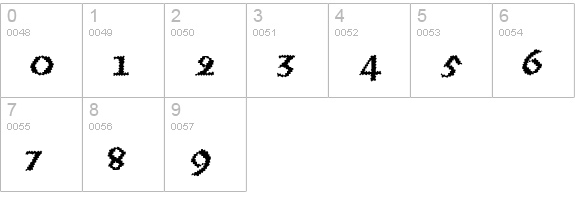
Quaxy Bold Italic Font Details
Quaxy Bold Italic is a strong, high-contrast, italic variant in the Quaxy typeface family \xE2\x80\x94 well suited to headlines, attention-grabbing titles, and strong calls-to-action.
Quaxy Bold Italic font is a stunning typographic masterpiece that combines the elegance of bold letterforms with the distinctive flair of italics. Designed to make a lasting impression, this font exudes confidence and sophistication, making it perfect for attention-grabbing headlines, powerful logos, and stylish branding. With its strong and dynamic presence, Quaxy Bold Italic font commands attention and effortlessly captures the essence of modern design. Each letter has been meticulously crafted to create a harmonious balance between boldness and elegance, resulting in a unique and eye-catching aesthetic. Whether you are working on a professional project, a creative endeavor, or simply looking to enhance your personal documents, Quaxy Bold Italic font is the perfect choice. Its versatility allows it to adapt to a variety of design styles, from sleek and minimalistic to bold and expressive. One of the best features of Quaxy Bold Italic font is that it is freely available to download at FontsMarket.com. This means that you can easily access this remarkable font and incorporate it into your design projects without any hassle. The font's availability for free makes it an excellent resource for designers, students, and anyone looking to add a touch of sophistication to their work. So, if you are searching for a font that effortlessly combines boldness and elegance, look no further than Quaxy Bold Italic. Its striking design, versatility, and availability for free at FontsMarket.com make it a must-have for any design enthusiast or professional. Download it today and elevate your designs to new heights with Quaxy Bold Italic font.